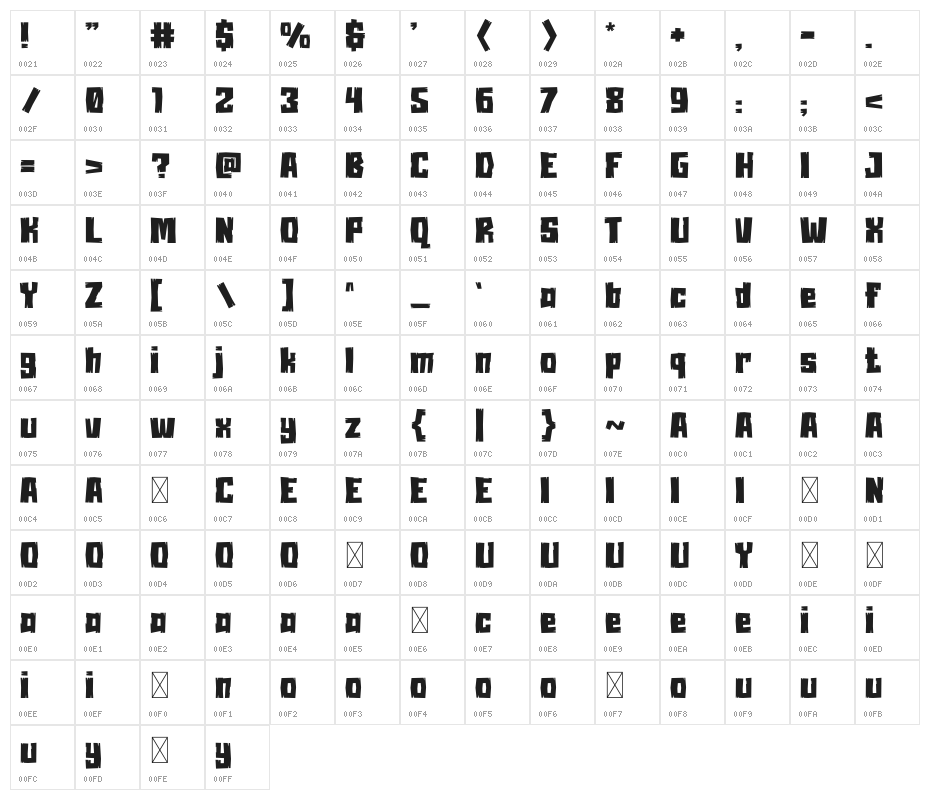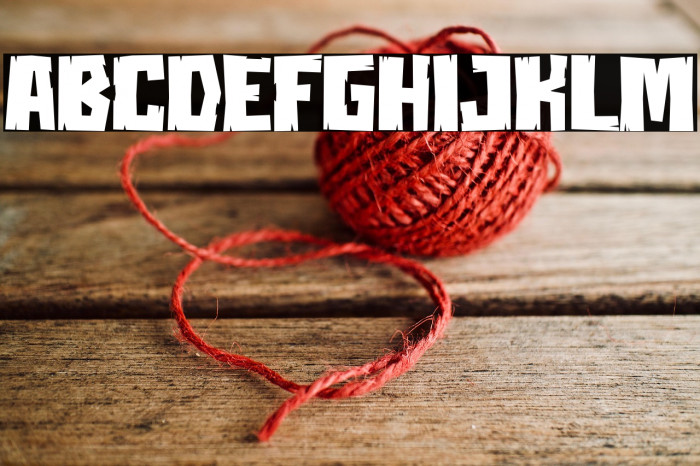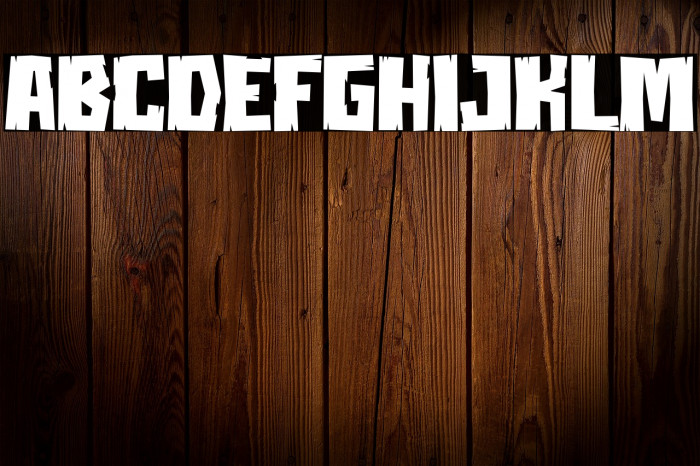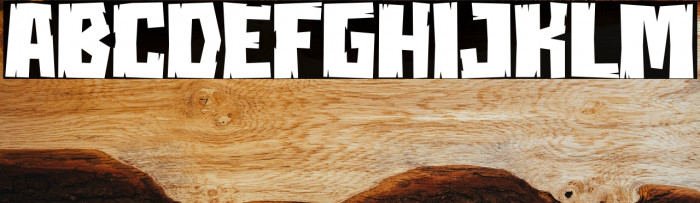
Woocaza Font
Woocaza Description
This font features a bold, jagged style with irregular edges, giving it a dynamic and energetic appearance. The characters are heavily stylized, with a rough, hand-drawn look that suggests movement and intensity. The uppercase and lowercase letters maintain a consistent aesthetic, with sharp angles and varying stroke widths that create a sense of urgency and excitement. The numbers and special characters follow the same design principles, ensuring a cohesive look across all glyphs. This font is ideal for projects that require a bold statement or a sense of action and adventure.
| Proposed Projects | Perfect for posters, video game titles, comic books, and branding that requires a bold, adventurous look. |